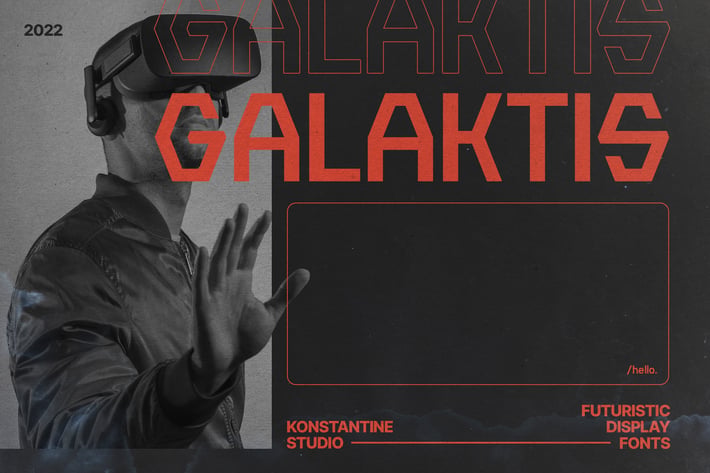
Galaktis - Futuristic Display Fonts
Jump up into the spaceship in a form of fonts with Galaktis. A futuristic display font with the vibes of space and the futuristic digital era. Get ready to experience the journey with Galaktis.
Perfectly fit for your music project, video, visual artwork, logo, branding, event poster, fashion, album artwork, anything.